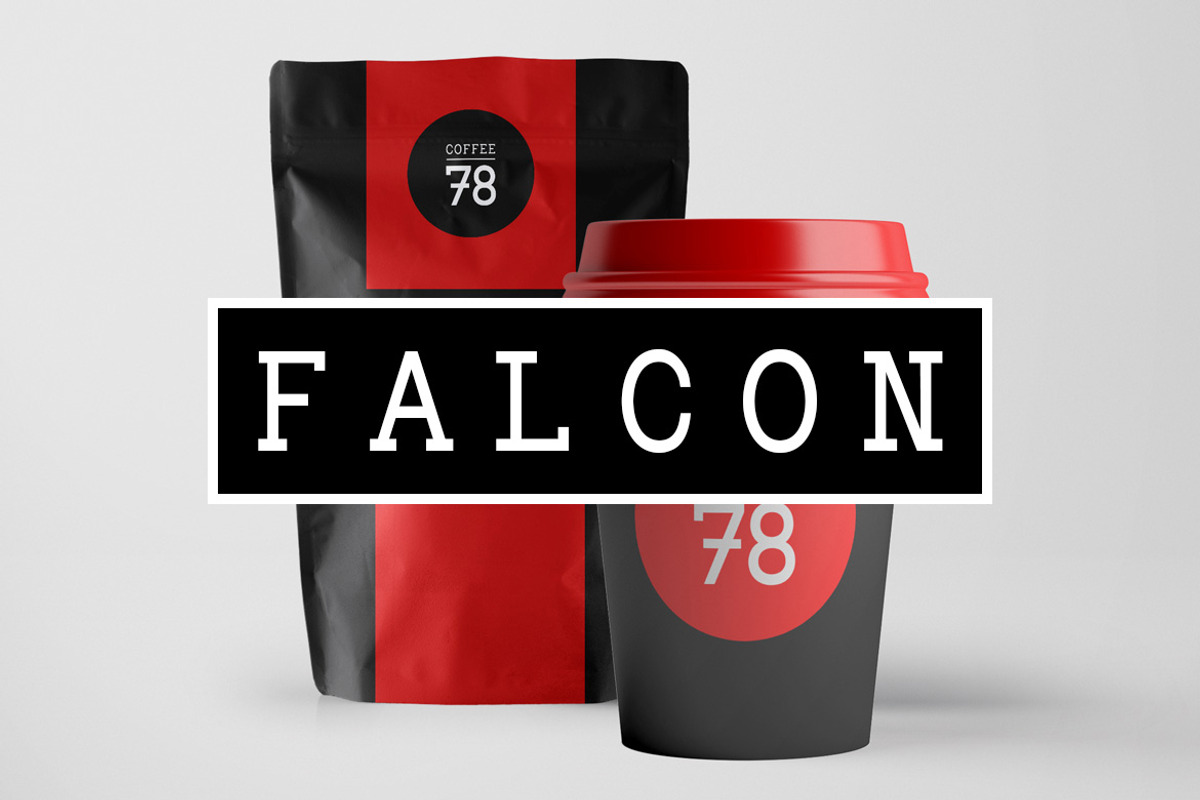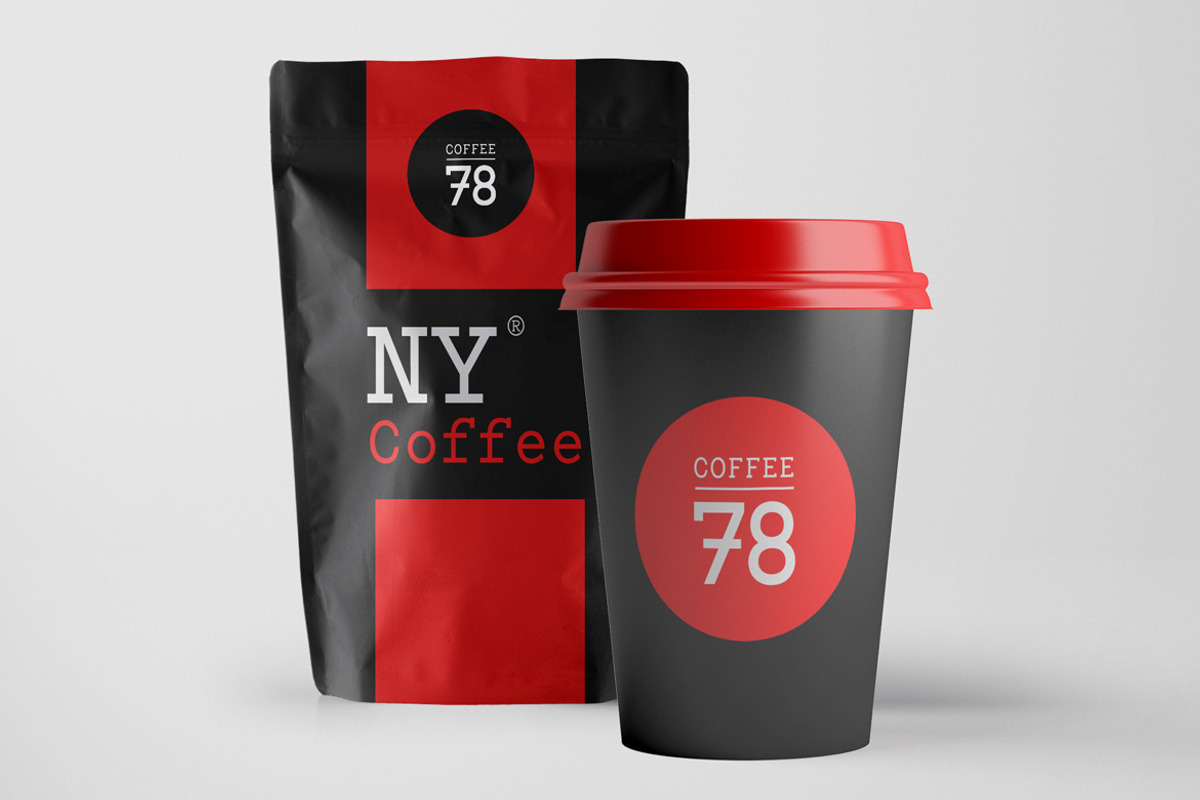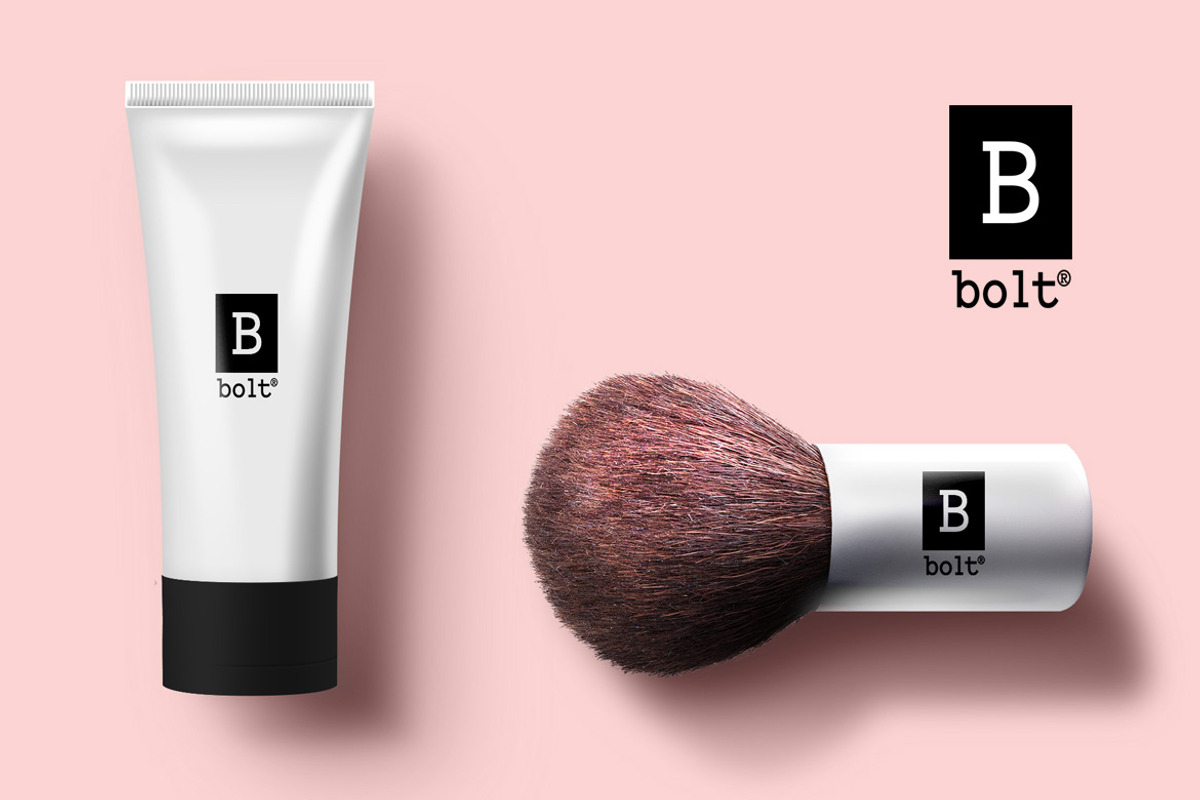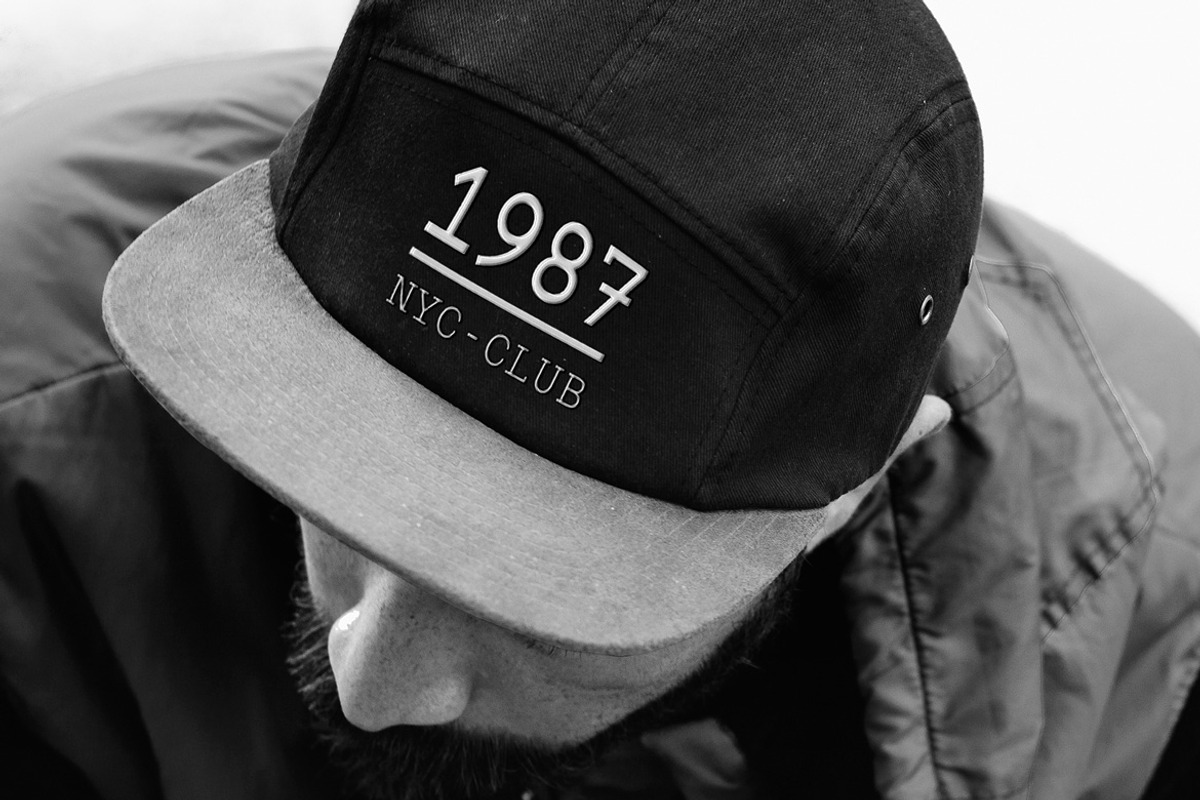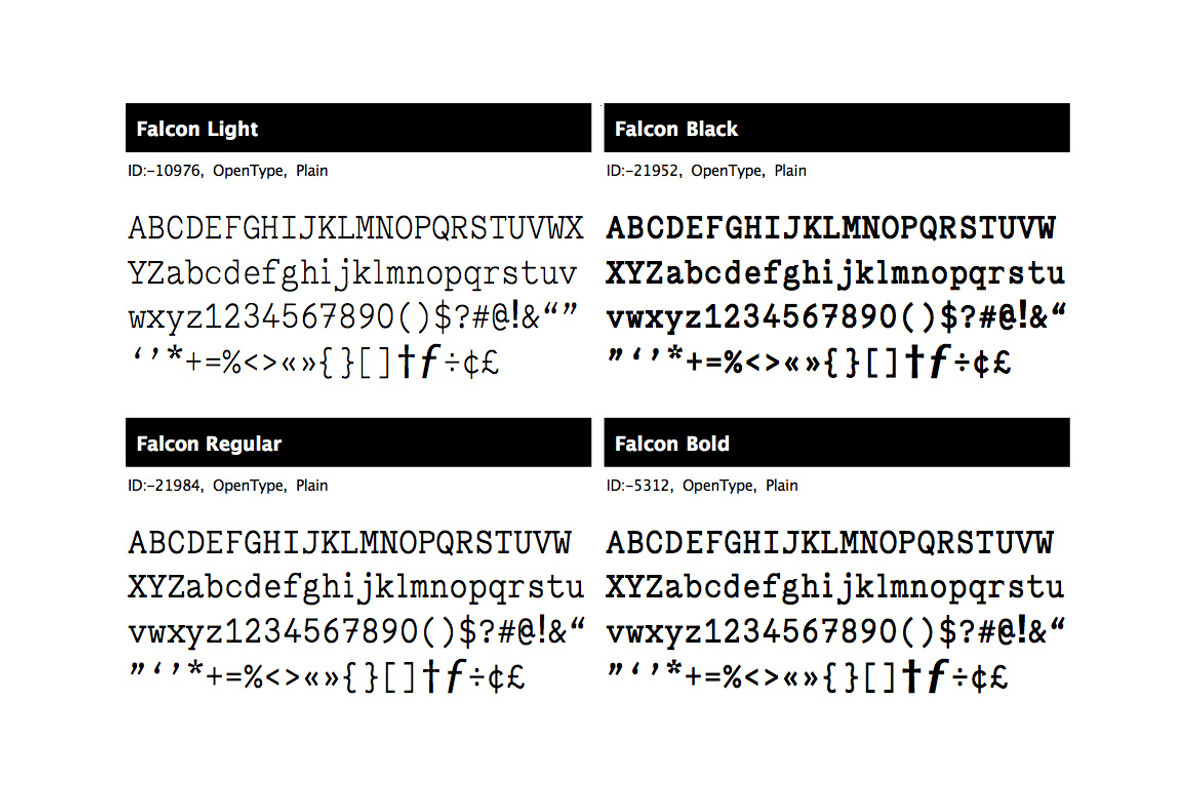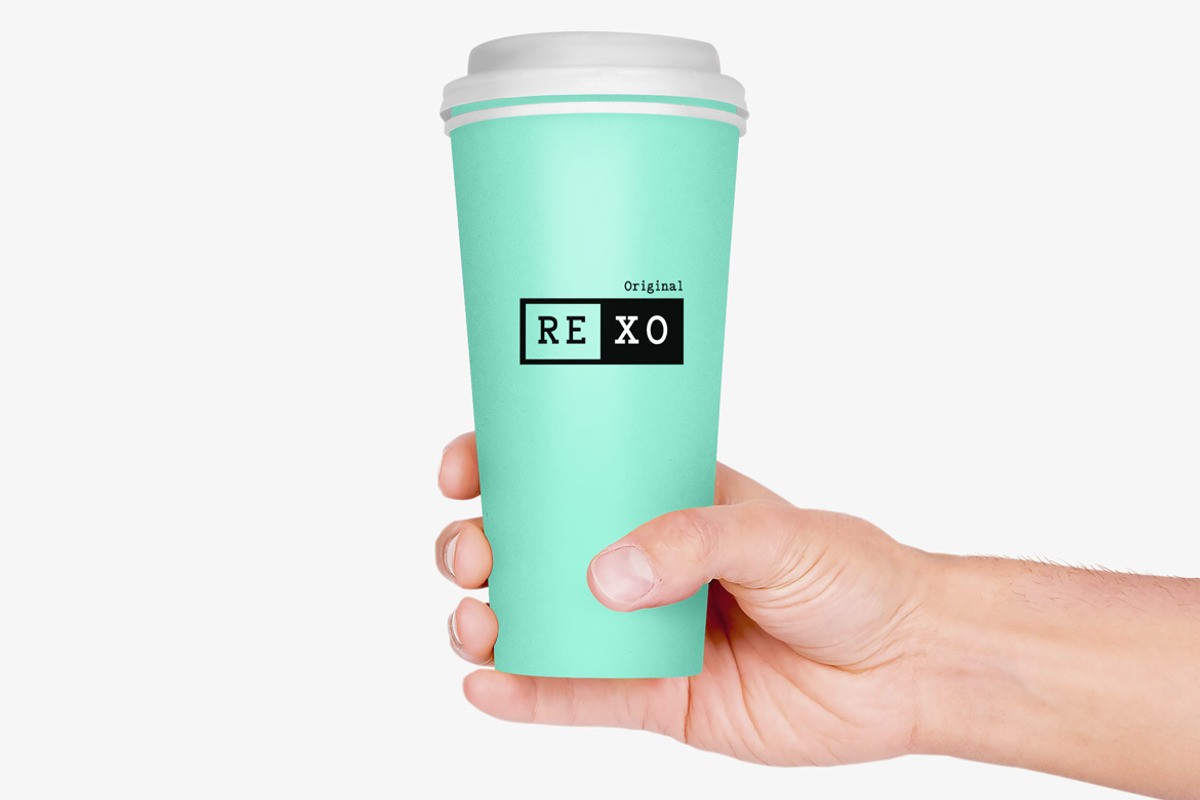
FALCON - Hybrid Slab-Serif Typeface
FALCON is a hybrid typeface with a unique identity and character of it's own. Inspired from some of the popular Mechanistic typefaces, FALCON is best suited for catchy headlines, branding identies, logotypes and normal Slab-Serif genre of text presentation.
Simply check the demo images shown above to get a nice idea about the look & feel of this typeface when used for branding and log design purpose.